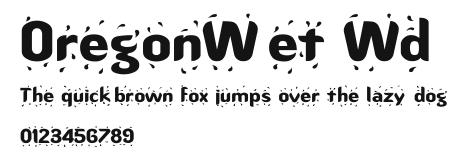
About OregonWet Wd.ttf
OregonWet Wd.ttf is a modern, elegant sans-serif font designed for ultimate readability and visual harmony. Perfect for branding, headlines, web design, and print materials.